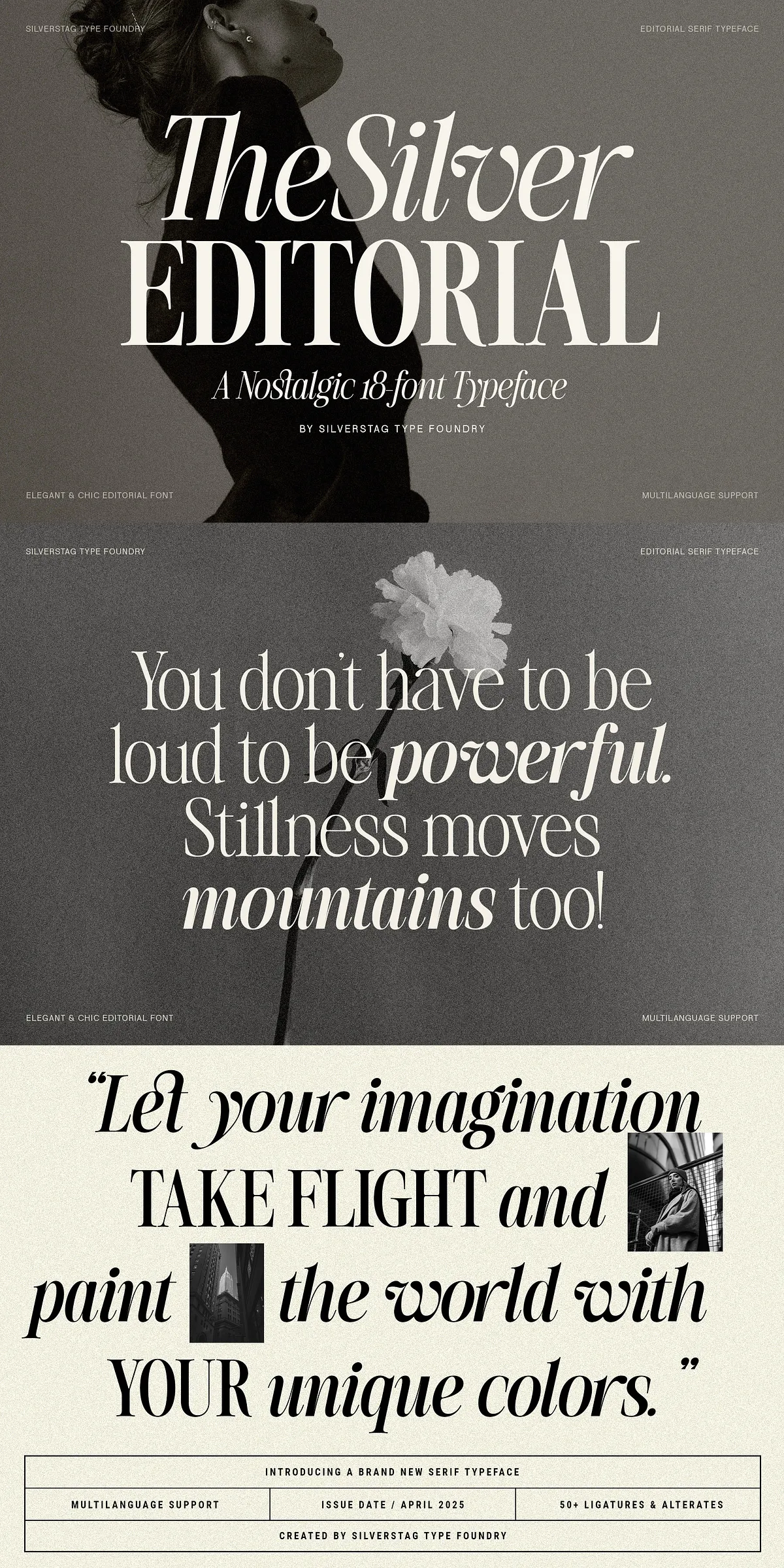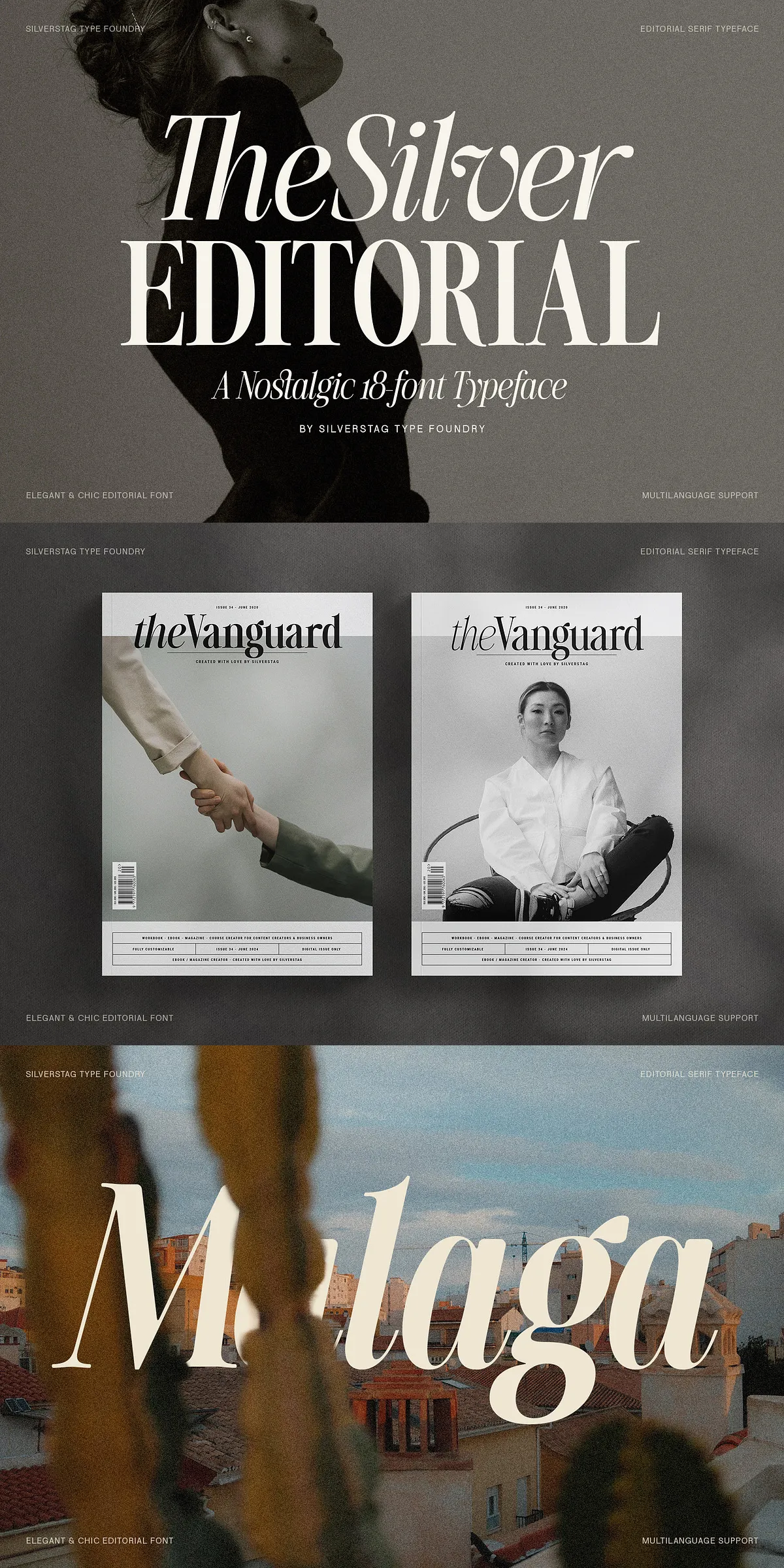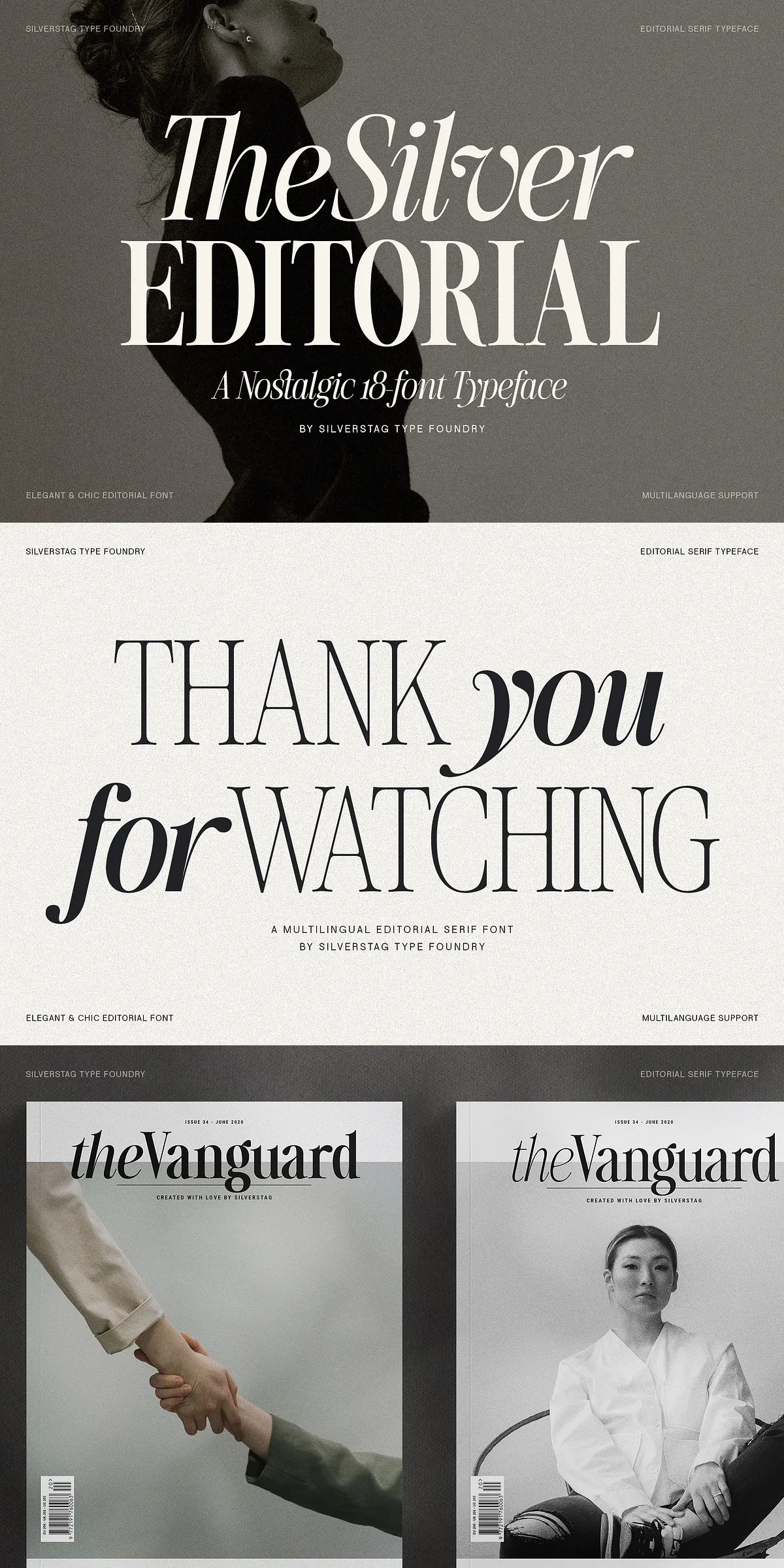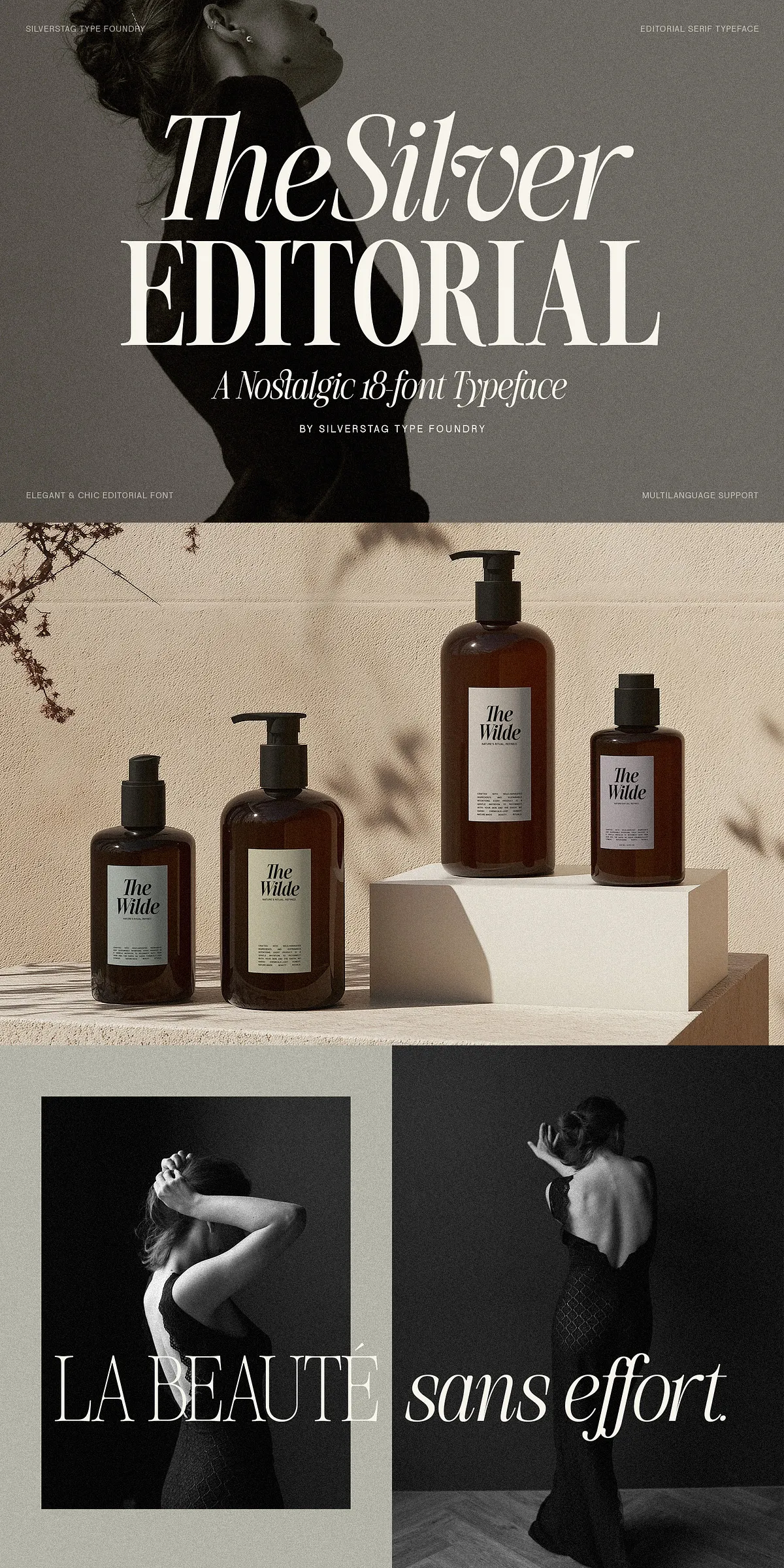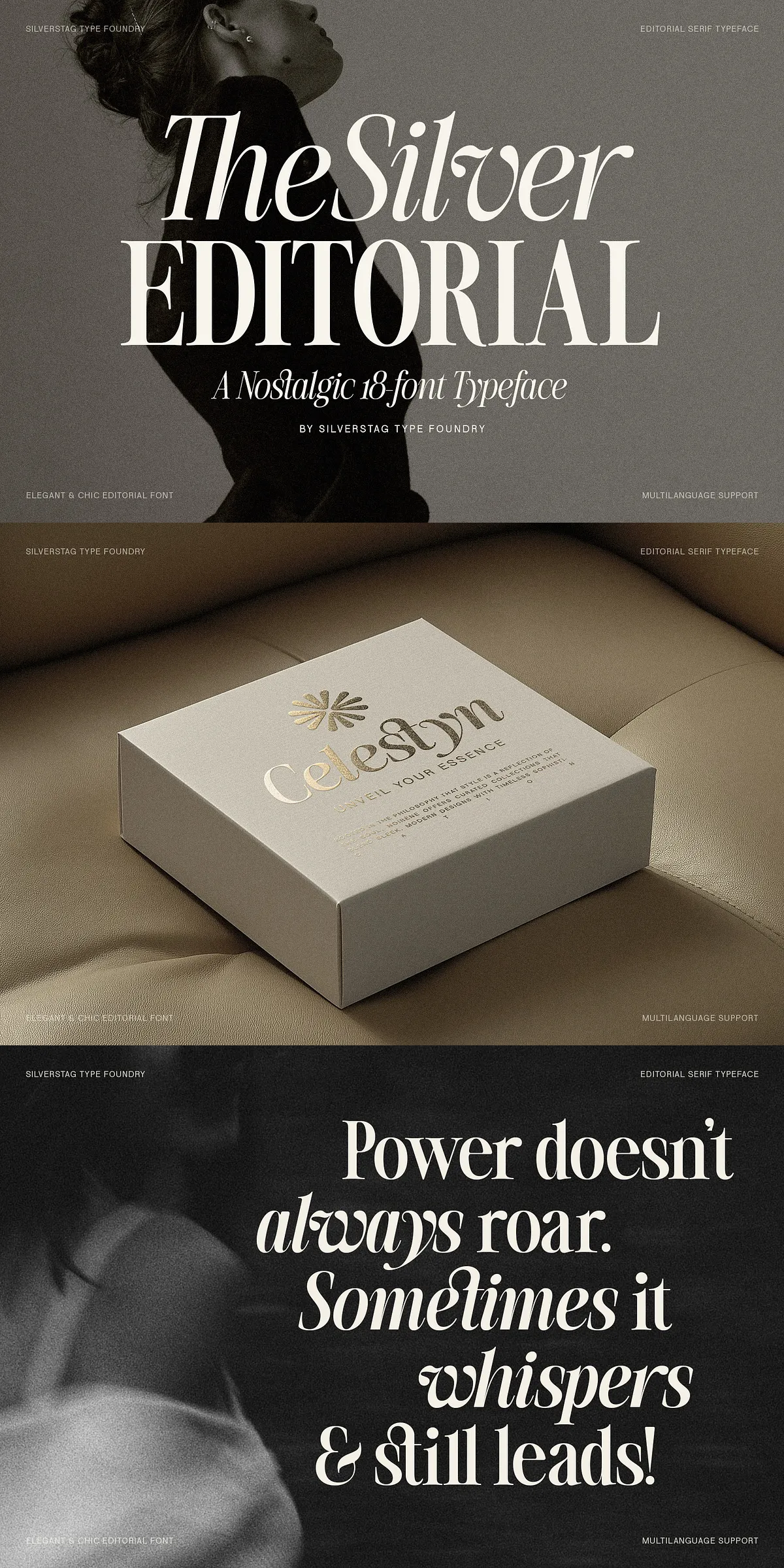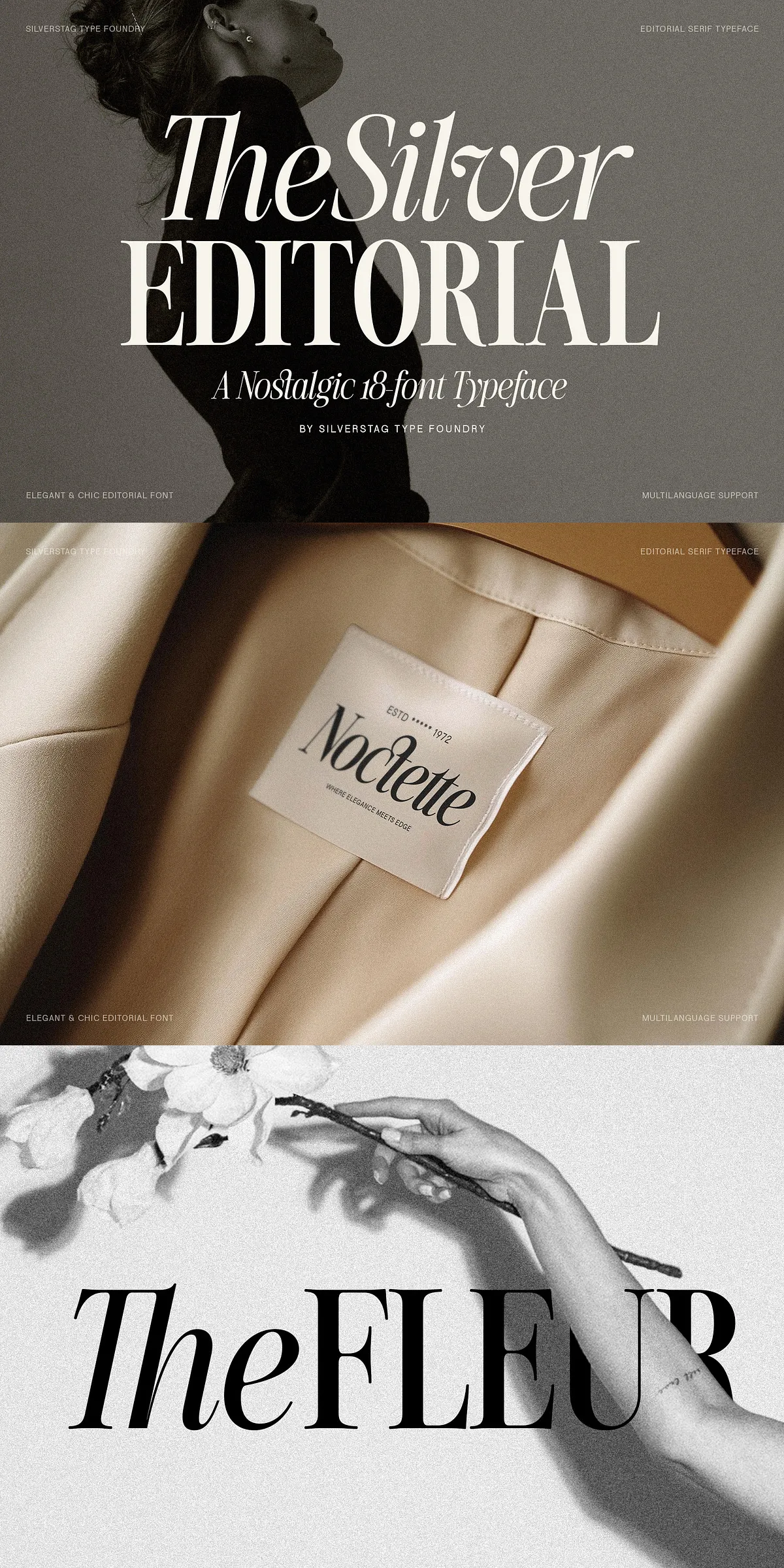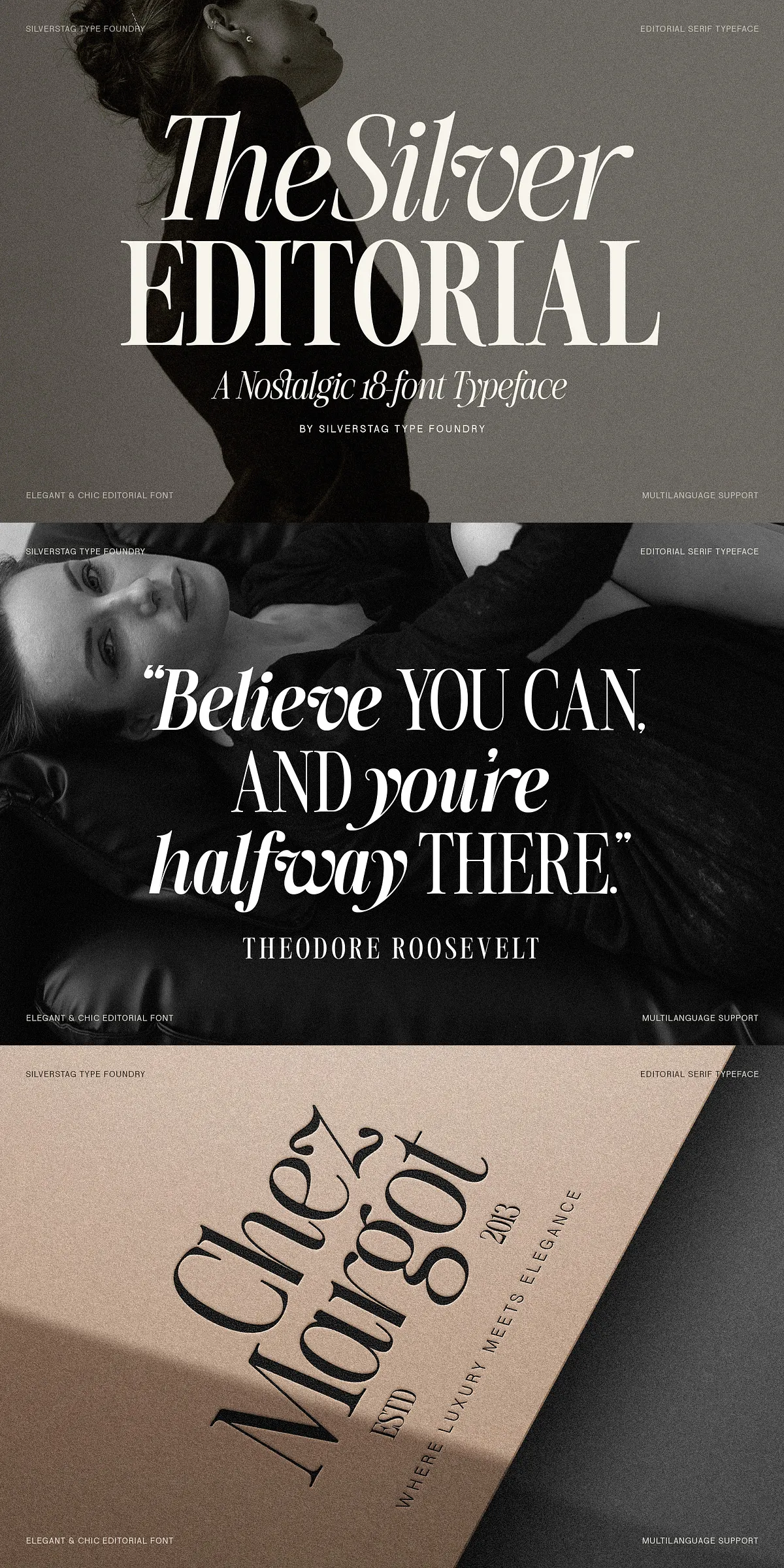
Step into a world where heritage meets precision, and elegance meets endurance. The silver editorial 2.0 isn’t just an upgrade—it’s a complete typographic transformation. Born from the legacy of one of the most beloved serif typefaces in the digital design space, this expanded version redefines what a professional serif font can be: now boasting a full suite of 18 distinct fonts across 9 carefully curated weights paired with their complementary italics, this is not just a font family—it’s a complete typographic ecosystem built for creators who demand both beauty and functionality.
From Heritage to Mastery: A Fully Redrawn Typeface for Modern Excellence
Unlike mere re-releases, The Silver Editorial 2.0 has been completely redrawn from the ground up. Every curve, serif, and stroke has been optimized for clarity, balance, and visual harmony. Whether you’re crafting high-end editorial layouts, luxury branding, or sophisticated print collateral, the refined proportions and improved legibility across all sizes deliver unmatched performance. The subtle contrast between thick and thin strokes remains true to its original nostalgic essence, but now enhanced for digital clarity, ensuring crisp results on retina displays, print-ready PDFs, and web applications alike.
Powerful Versatility Across 18 Distinct Fonts
With 18 fonts in total, this is the ultimate toolkit for any serious designer:
- 9 Weights from Light to Black – from delicate, airy text to bold, commanding headlines.
- 9 Italic Variants – perfectly aligned with their roman counterparts for seamless integration in body text, captions, and pull quotes.
- Contextual Ligatures & Stylistic Sets – advanced OpenType features that bring a natural, handcrafted flow to your text.
- Extended Character Set – full support for multiple European languages, including diacritical marks for French, German, Italian, and Scandinavian characters.
Whether you’re designing a magazine spread, a book cover, or a brand identity, you’ll have the perfect weight and personality for every need—without ever straying from the cohesive visual language.
Designed for Real-World Designers, Built for Real-World Results
From editorial design to luxury branding, book publishing to digital storytelling, The Silver Editorial 2.0 excels where it matters most:
- Magazine Layouts: Use light weights for body text and bold variants for headlines, creating dynamic, magazine-ready structures.
- Brand Identity & Packaging: Add premium authenticity to product labels, logos, and marketing materials with a serif that speaks refinement.
- Website Headers & Hero Text: Make powerful first impressions with elegant, readable display text that commands attention.
- Academic & Literary Projects: Perfect for theses, poetry collections, and historical documents where authenticity and dignity are key.
Pro Tip: Pair with Purpose for Maximum Impact
Let the serif do the talking—pair The Silver Editorial 2.0 with clean, neutral sans-serifs to let its elegance shine:
- Montserrat for modern, minimalist branding.
- Lora for literary and educational content.
- Playfair Display for a classic, high-contrast feel.